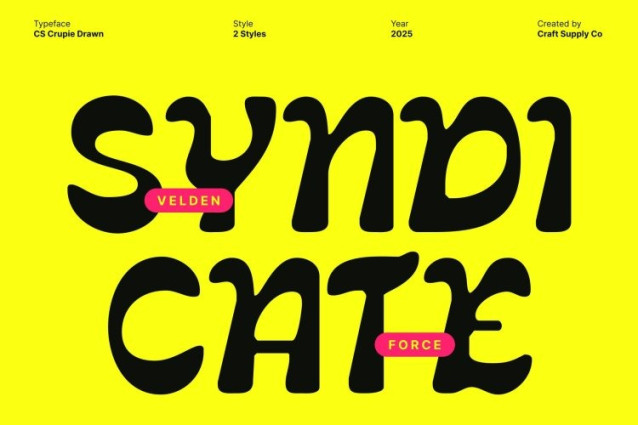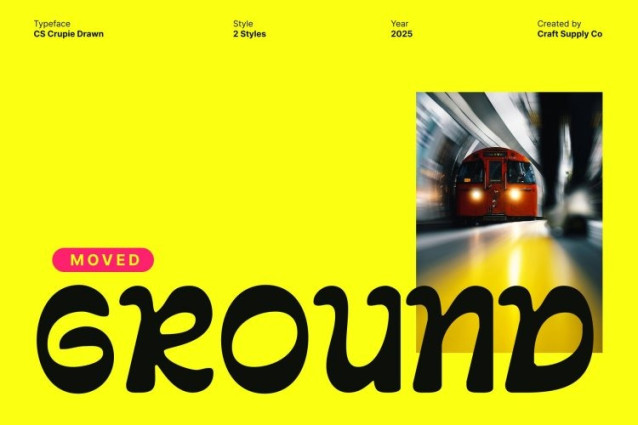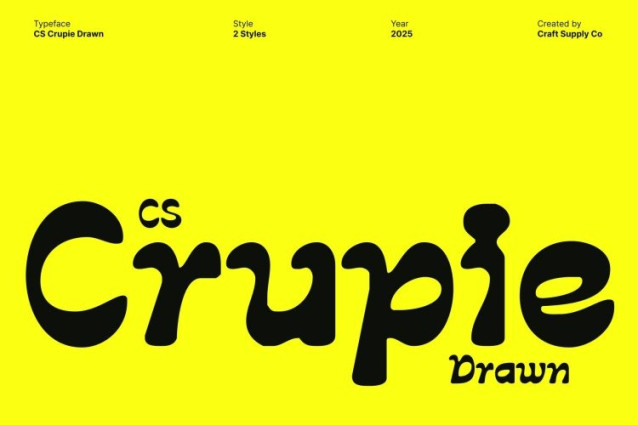
CS Crupie Drawn Font
CS Crupie Drawn Font – This font brings the bold spirit of the 1970s into modern design through its playful reverse contrast construction. Its thick horizontals and slender verticals create an eye-catching rhythm that feels instantly groovy, energetic, and full of personality. Inspired by retro signage and vintage pop culture, this display font radiates funky charm in every curve.
Decorative Curves for Playful Expression
Designed with expressive swirls and decorative curves, this font captures the essence of retro fun. Each letterform flows with a charming sense of movement, adding vibrancy and warmth to your compositions. Its lively shapes make it ideal for projects that celebrate creativity, nostalgia, and expressive visual storytelling.
Hand-Drawn Texture for an Artistic Touch
Enhancing its retro appeal, the drawn handmade texture gives the font an authentic, crafted feel. The organic details add artistic character, making the font feel more personal, tactile, and visually rich. This texture elevates the design, making it perfect for layouts that need a hint of handcrafted charm.
Perfect for Funky Branding and Bold Displays
From retro posters and playful branding to groovy album covers and nostalgic event promotions, this font injects energy and style into every project. Its combination of reverse contrast structure, artistic texture, and 1970s flair makes it a standout choice for designers who want to create lively, expressive, and unforgettable visuals.